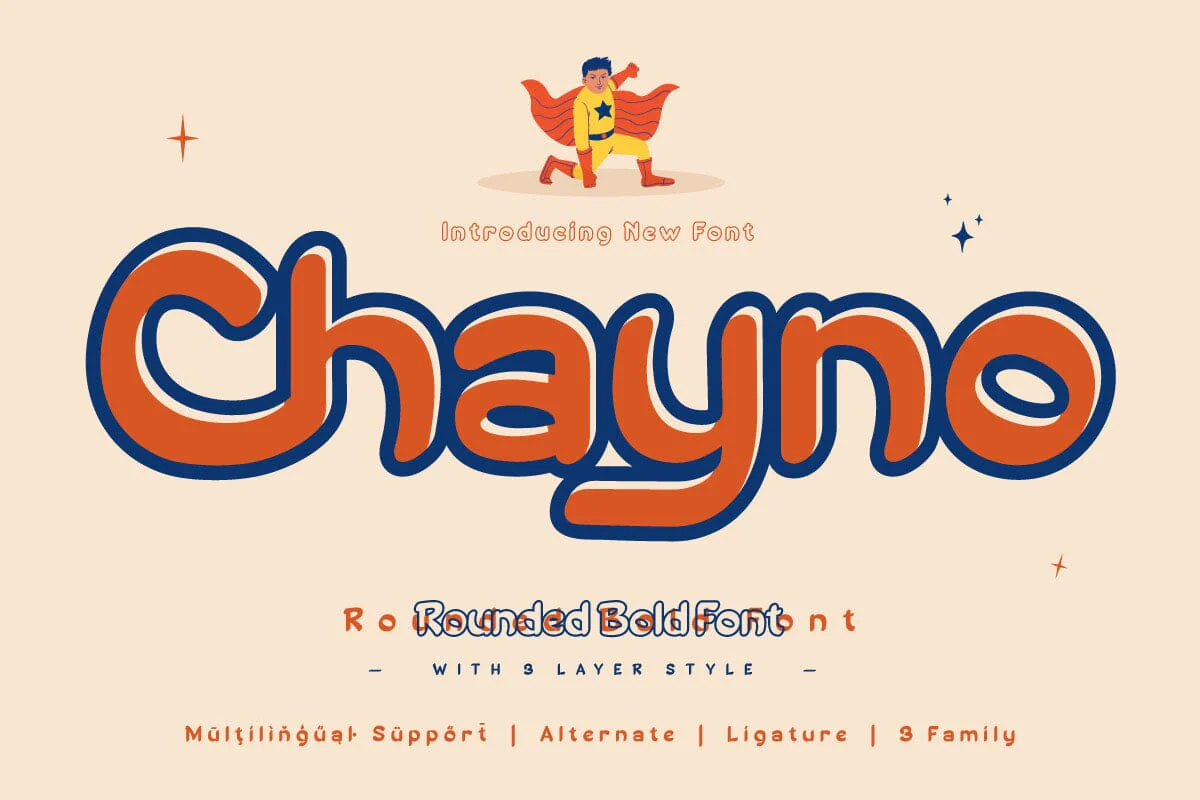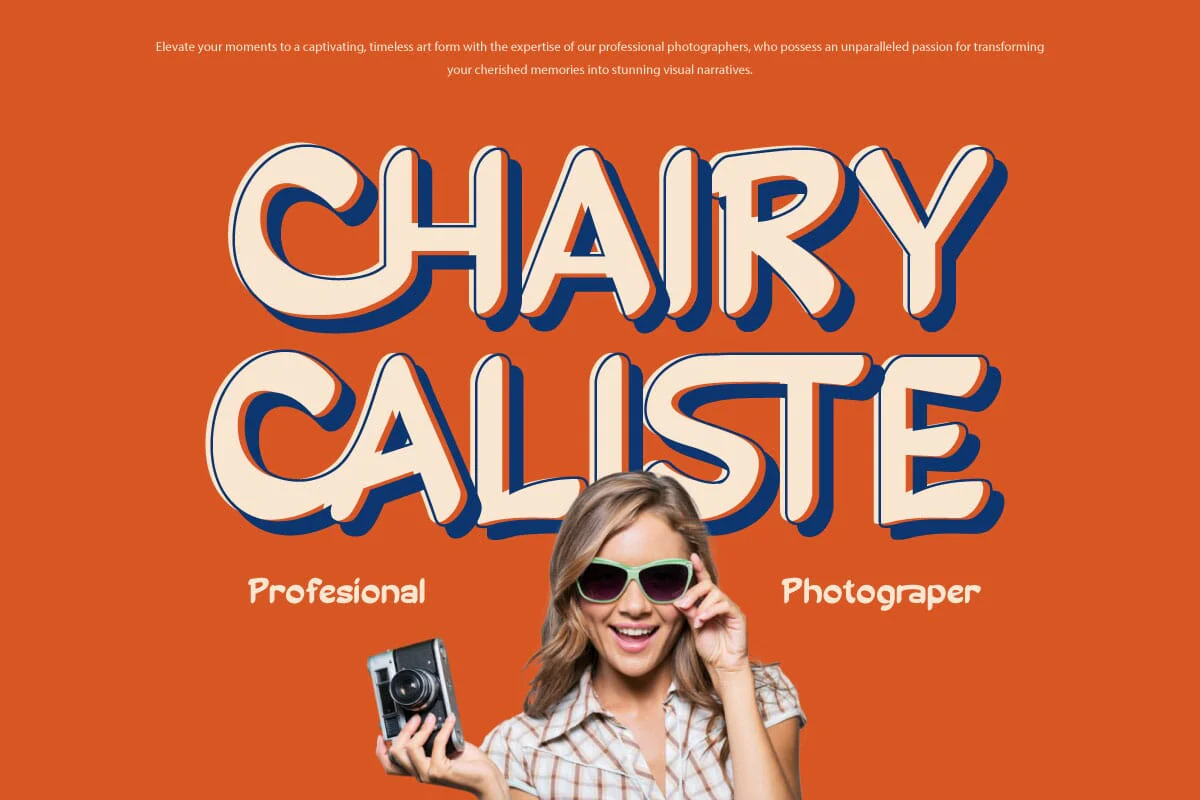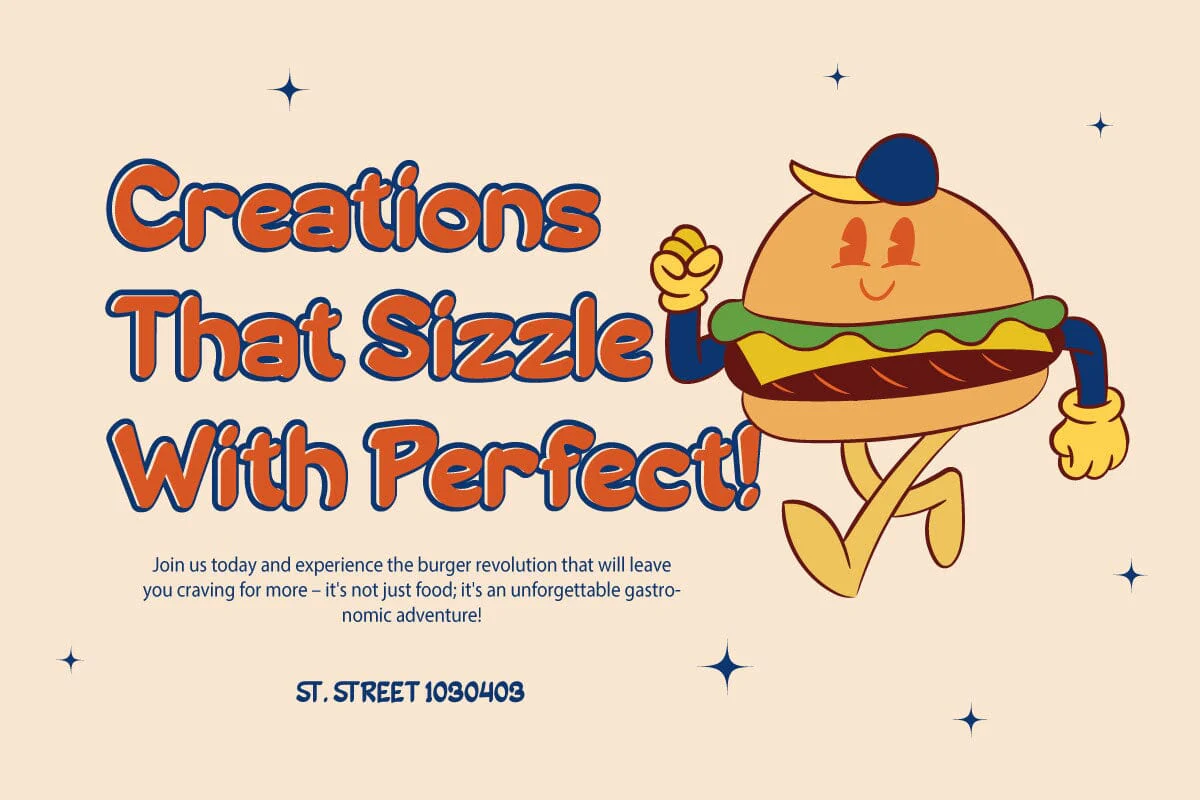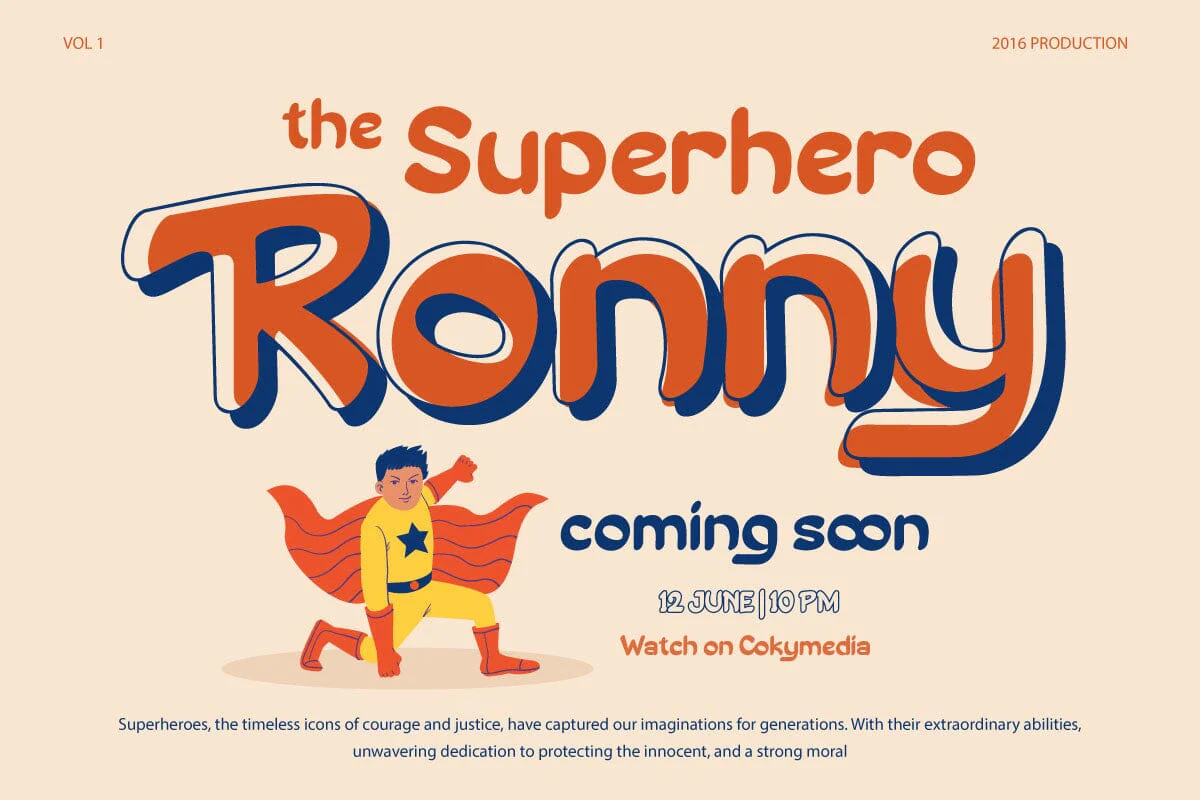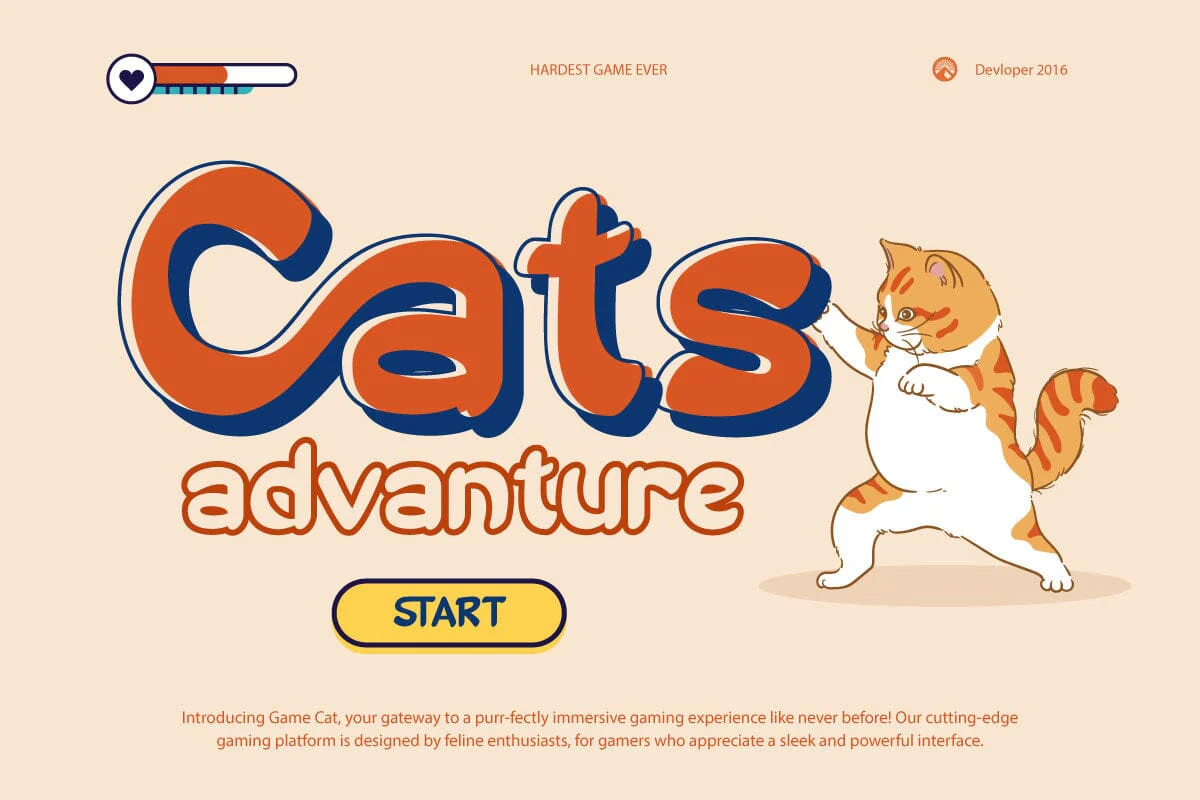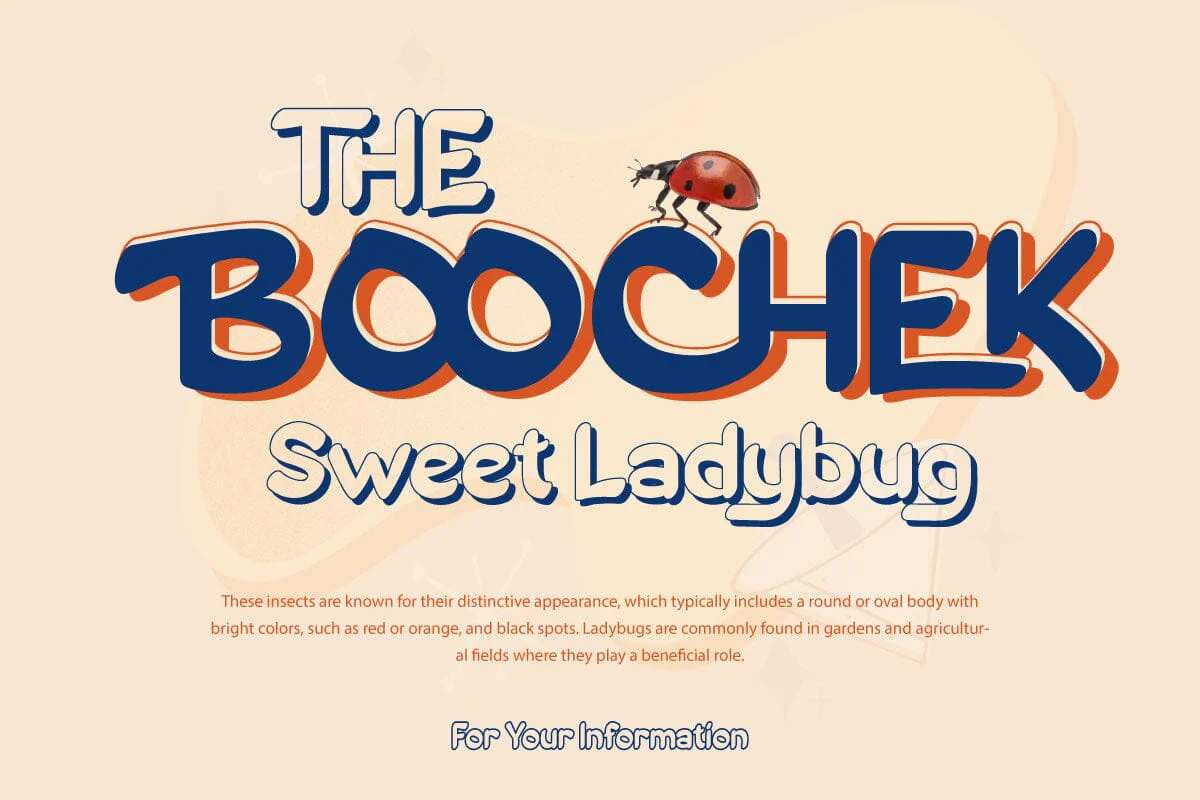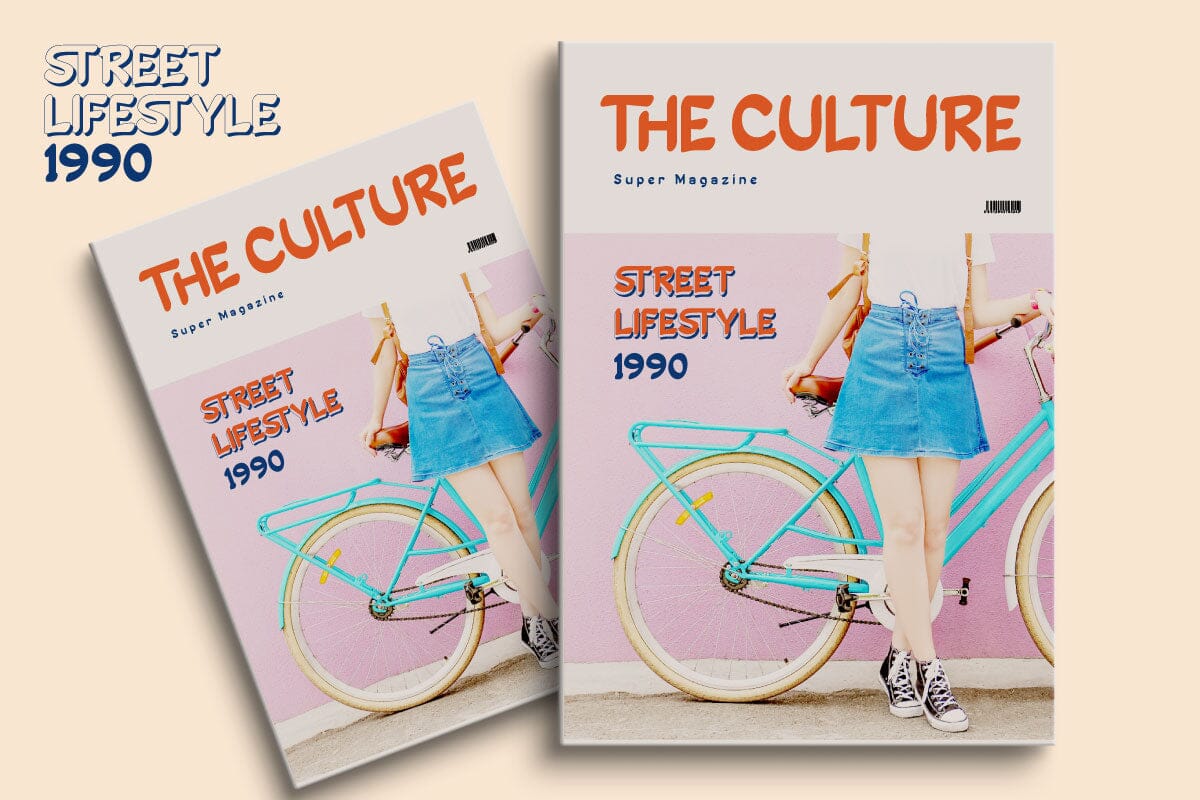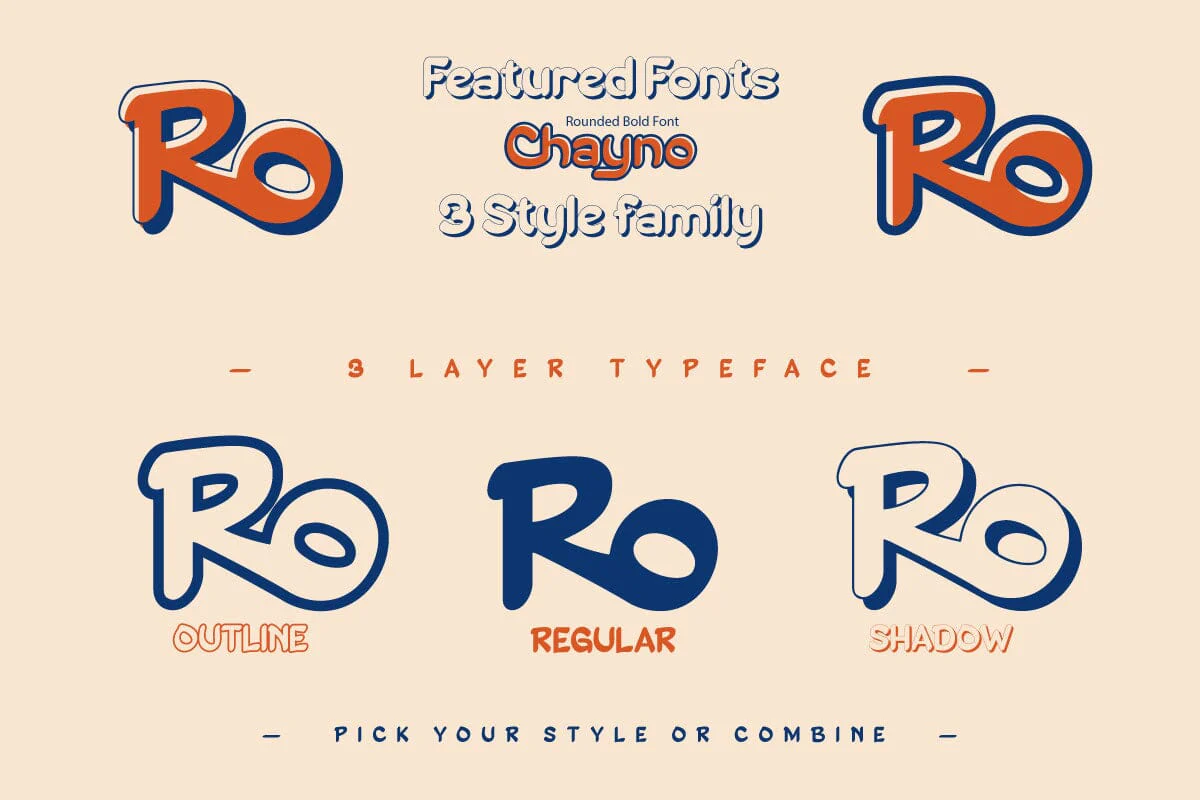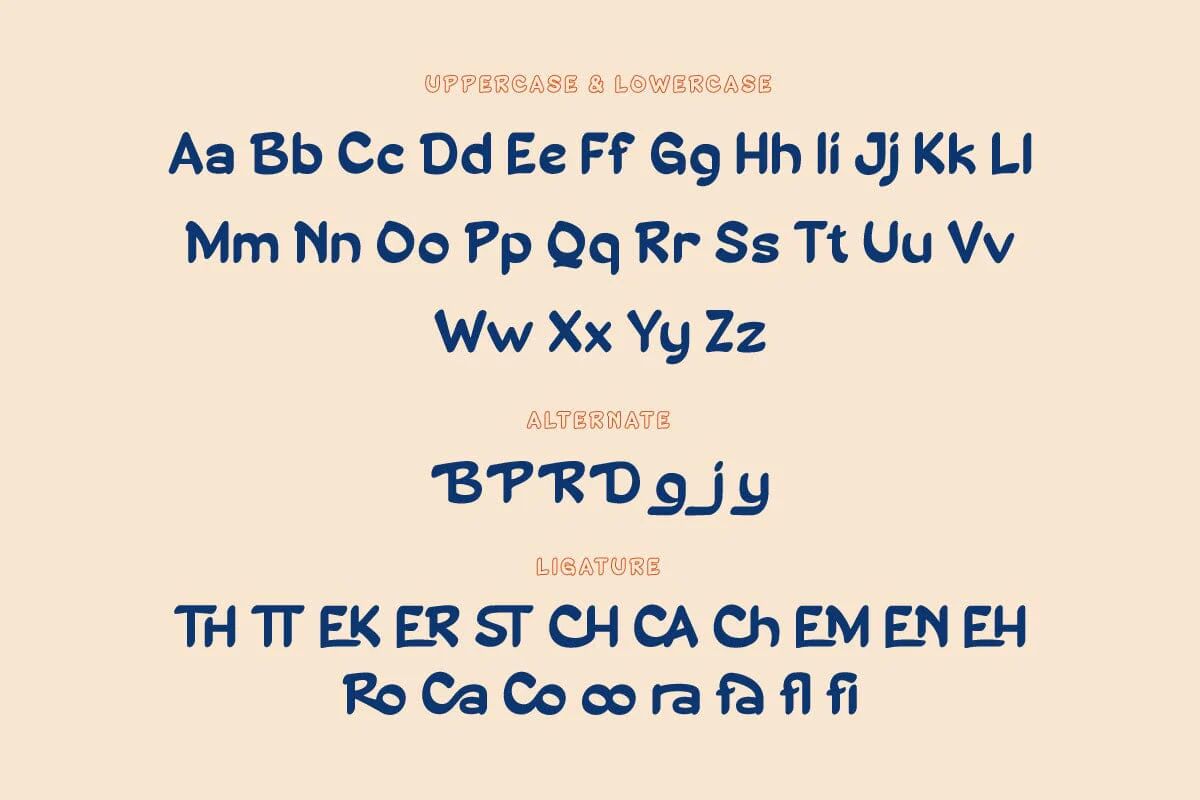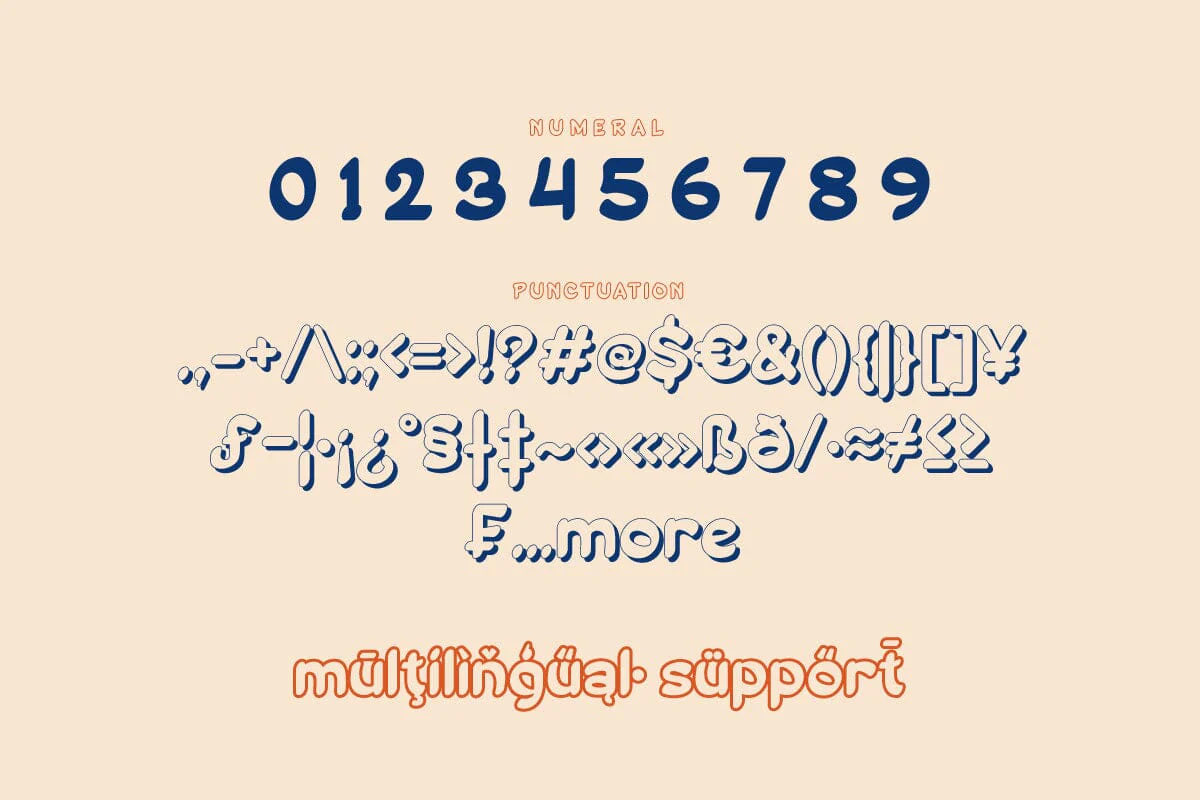
Chayno - Handwriting Font
Welcome to the world of Chayno, where handwritten style meets fun casualness. Are you looking for a sleek yet casual and playful look for your various visual projects? Chayno is the perfect choice. With three different variants, including Regular, Outline, and Shadow, Chayno gives you the flexibility to deliver effects that suit your design needs. You can create a clean, professional look or add a fun, playful touch to your project. Chayno also features creative ligatures and alternate characters, allowing you to explore a variety of fun letter variations. Not only that, this font supports multiple languages, ensuring your message can be received by audiences all over the world. With Chayno, every word becomes more than just text - it becomes an expression and an experience. Let's make your messages attractive and uplifting together with these cheerful fonts. Chayno - turns words into fun adventures. Immediately use this font to bring joy to all your projects!